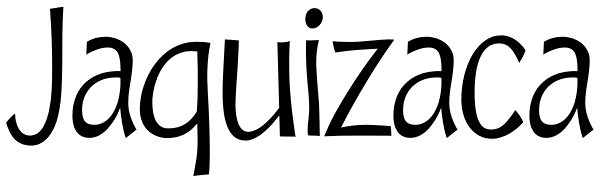
Jaquizaca
Jaquizaca is hand drawn type to go well with vector illustrations. Jaquizaca was created in 2001 to make inter-titles for a TV-programme. After twelve years it was revised and updated with ligatures, contextual alternates and other OpenType...